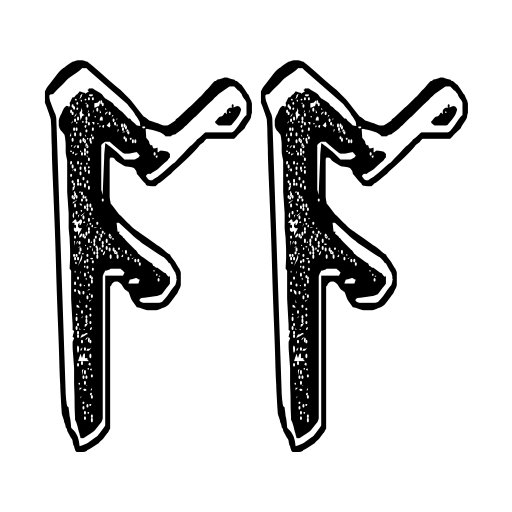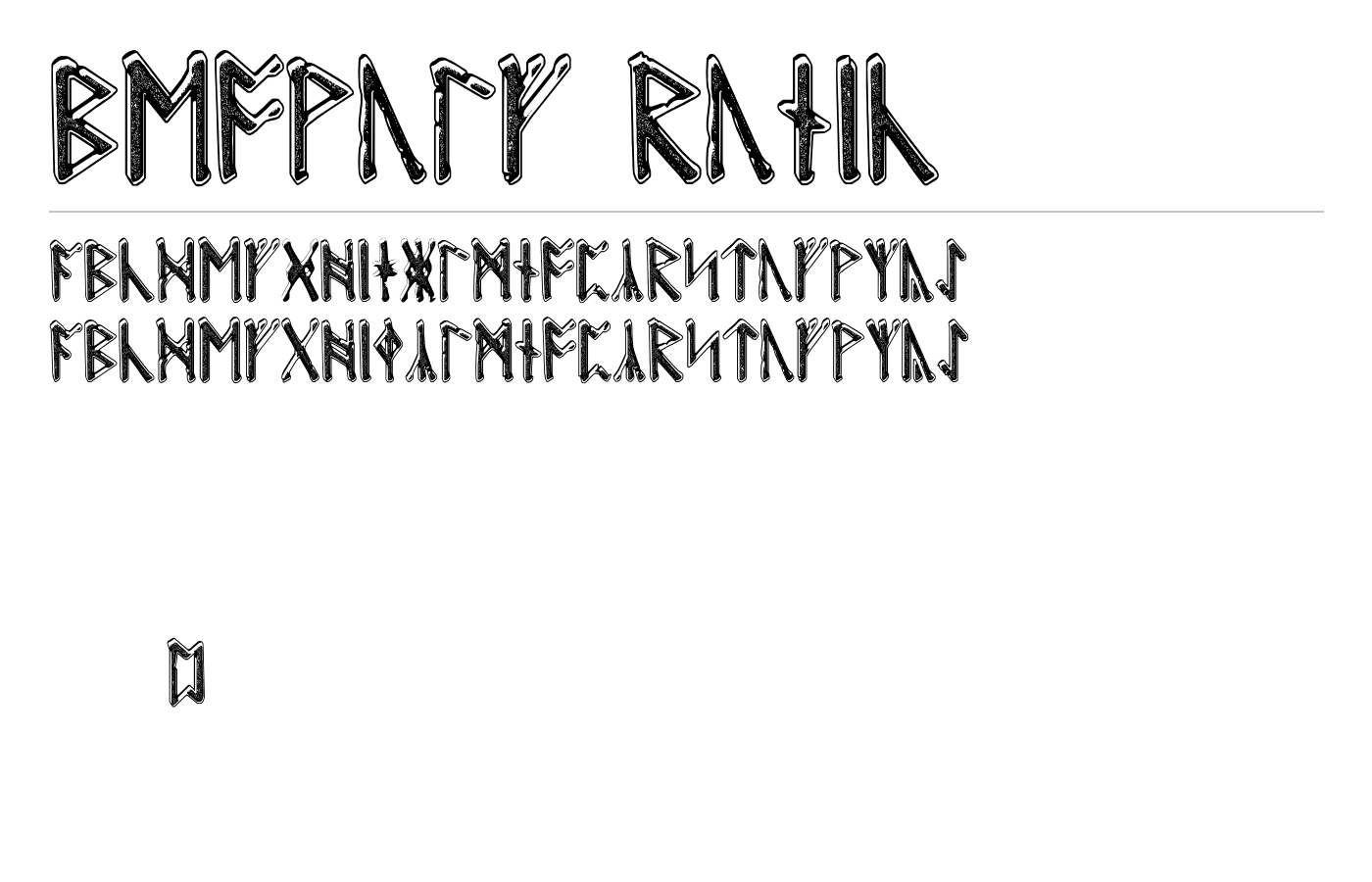
Beowulf Runic Font is a decorative, serif typeface inspired by ancient runic alphabets, featuring sharp, angular strokes with a rugged, textured effect that evokes a historic and mystical atmosphere. Its narrow, upright letterforms and intricate detailing make it ideal for projects seeking a bold, archaic, and adventurous look, perfect for fantasy themes, game titles, or cultural heritage branding. This font’s unique style captures a strong sense of ancient lore and rugged tradition, adding distinctive character to headlines, logos, and thematic designs.
Beowulf Runic Font
About Beowulf Runic Font
| Font family | Beowulf Runic Font |